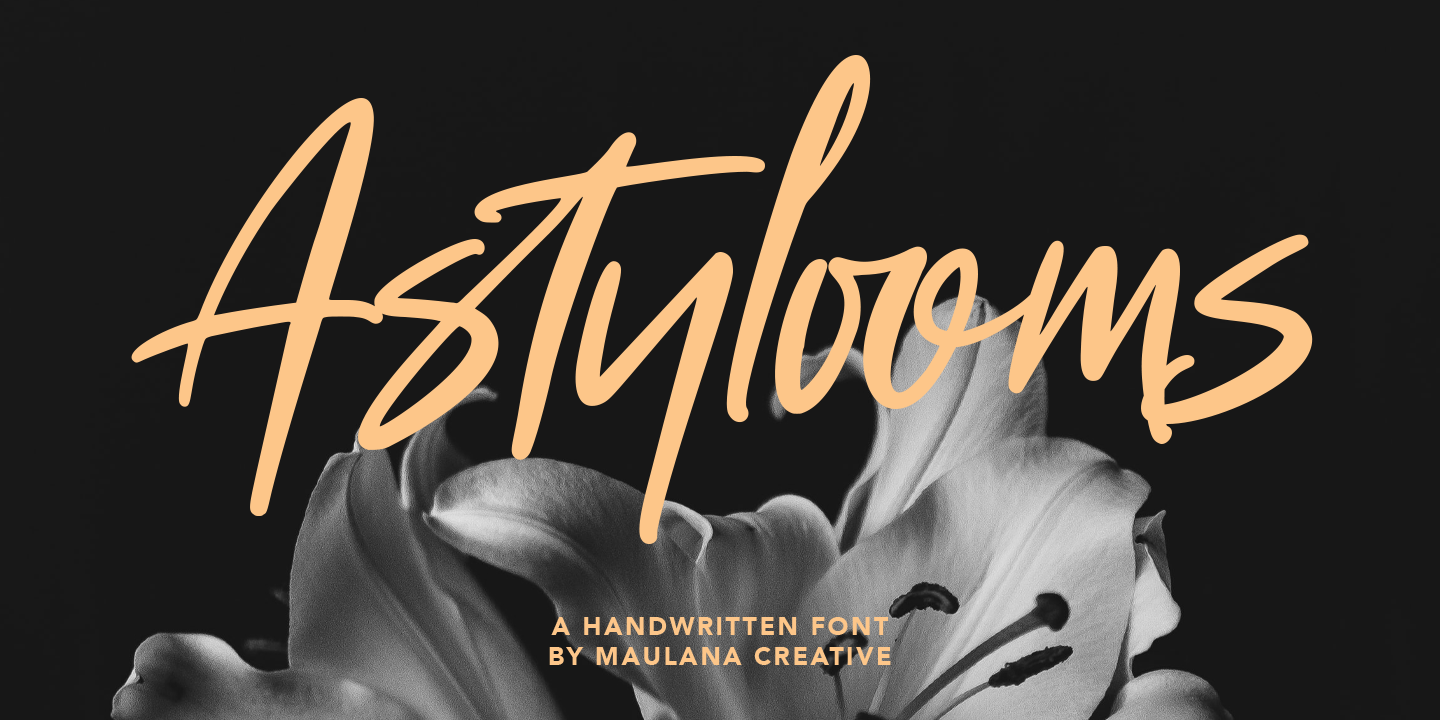
The Astylooms Font is perfect for avant-garde fashion branding, contemporary art gallery exhibitions, modern design studio communications, innovative textile marketing, creative agency portfolios, experimental advertising campaigns, artistic event promotions, and cutting-edge digital design projects. This versatile typeface excels in fashion houses, art galleries, design studios, textile manufacturers, and any organization seeking to communicate artistic innovation, creative excellence, and sophisticated modern aesthetics in their visual communications.
What makes Astylooms Font so exciting is its artistic, sophisticated character that perfectly captures the essence of contemporary creative expression while maintaining exceptional functionality and modern appeal. The font features uniquely crafted letterforms with artistic proportions, innovative design elements, and distinctive details that create an immediate sense of creative sophistication and artistic excellence. Its avant-garde design philosophy makes it ideal for brands that want to communicate innovation, artistic vision, and the kind of creative leadership that sets new trends and inspires artistic movements.
The Astylooms Font family includes comprehensive weight variations: Light, Regular, Medium, Semi Bold, Bold, Extra Bold, and Black versions, each available in upright and italic styles. Additionally, it offers artistic alternates, creative decorative elements, and innovative flourishes that enhance the font's sophisticated appeal. The family includes extended character sets with multilingual support and specialized glyphs for artistic and creative design applications.
When you choose Astylooms Font Free Download, you're selecting a typeface that embodies artistic sophistication and creative innovation while ensuring exceptional functionality across all modern applications. This font seamlessly combines avant-garde aesthetics with contemporary design requirements, making it perfect for both digital platforms and premium print applications. The carefully crafted letterforms maintain perfect legibility while the distinctive artistic qualities create memorable brand experiences that resonate with audiences seeking authentic creative expression and innovative design solutions.
Whether you're developing artistic brand identities, creating avant-garde marketing materials, designing creative portfolios, or establishing a visual identity that celebrates artistic innovation and sophisticated creativity, this font delivers outstanding visual impact and artistic appeal. The Astylooms Font transforms your content into sophisticated communications that capture creative excellence and reinforce your brand's commitment to artistic innovation and the pursuit of cutting-edge design excellence.